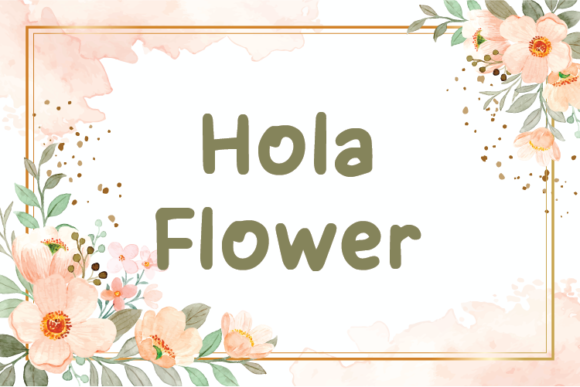
Brace yourself for a captivating voyage into the world of Hola Flower Font, a delightful handwritten font that encapsulates the essence of natural artistry. Crafted by the talented Hanna Bie, this font family gracefully captures the fluidity and charm of flawless handwriting.
Dive into the depths of Hola Flower Font's distinct characteristics. Each letterform is carefully designed to retain its original indentation, preserving the authenticity and uniqueness of each character. This meticulous attention to detail results in a font that exudes originality and breathes life into your creations.
Hola Flower Font's versatile nature shines across a wide spectrum of applications. Whether you're crafting heartfelt quotes, jotting down personal notes, designing eye-catching tees, or embarking on any product design endeavor, this font will effortlessly elevate your project to new heights of visual appeal.
Unleash your creativity and let Hola Flower Font guide you on a journey of self-expression. With its mesmerizing flow and captivating style, this font will transform your words into an enchanting visual tapestry, leaving an indelible mark on your audience.
Embrace the transformative power of Hola Flower Font and embark on a creative odyssey where your ideas blossom into masterpieces. Immerse yourself in the beauty of this natural handwritten font and elevate your designs to extraordinary new realms.